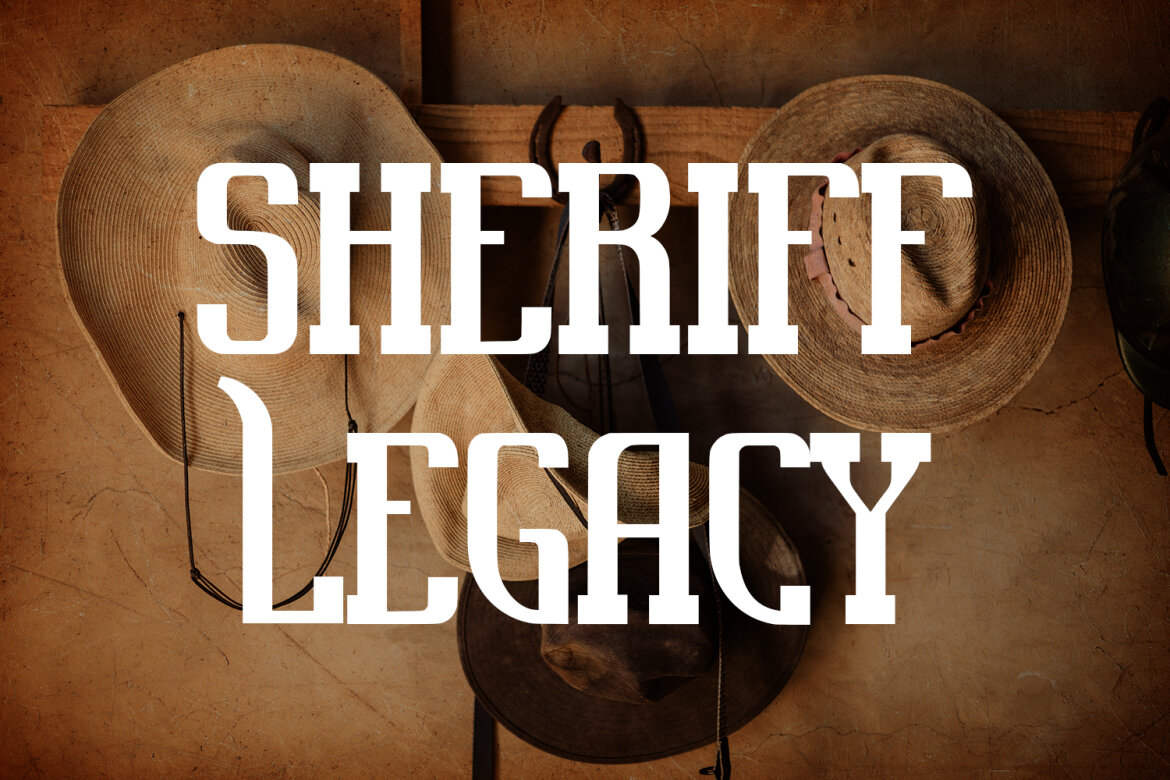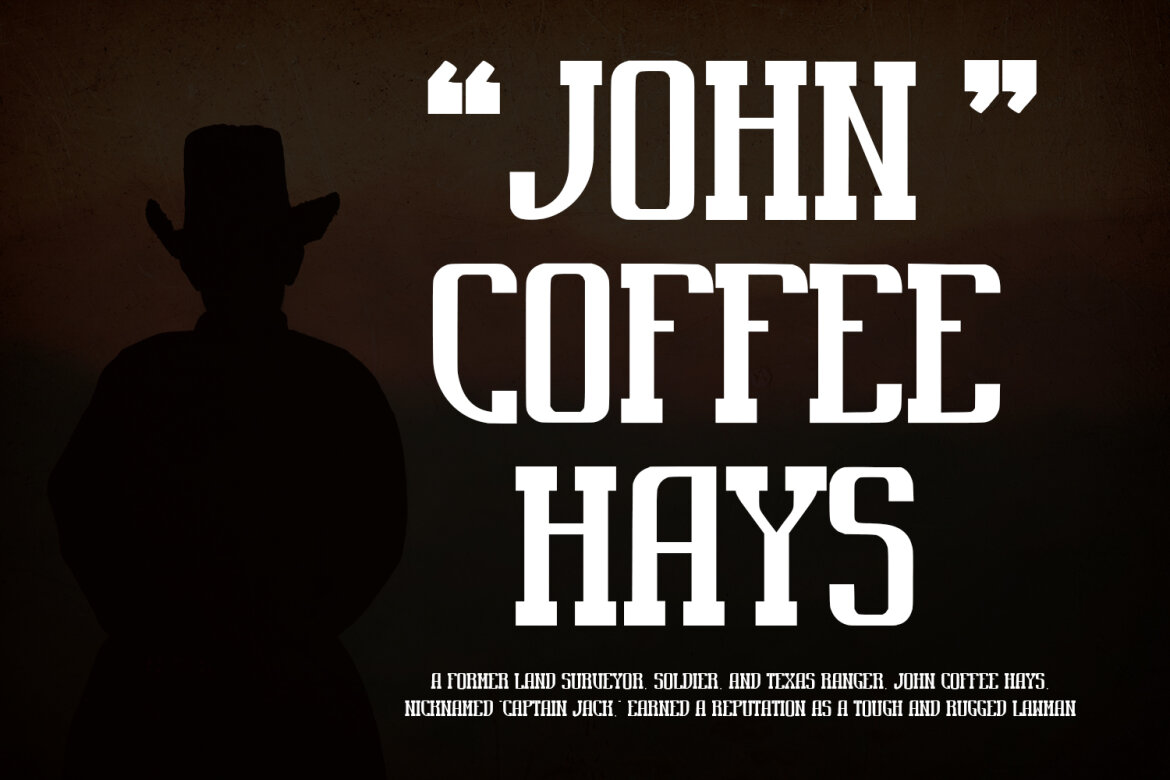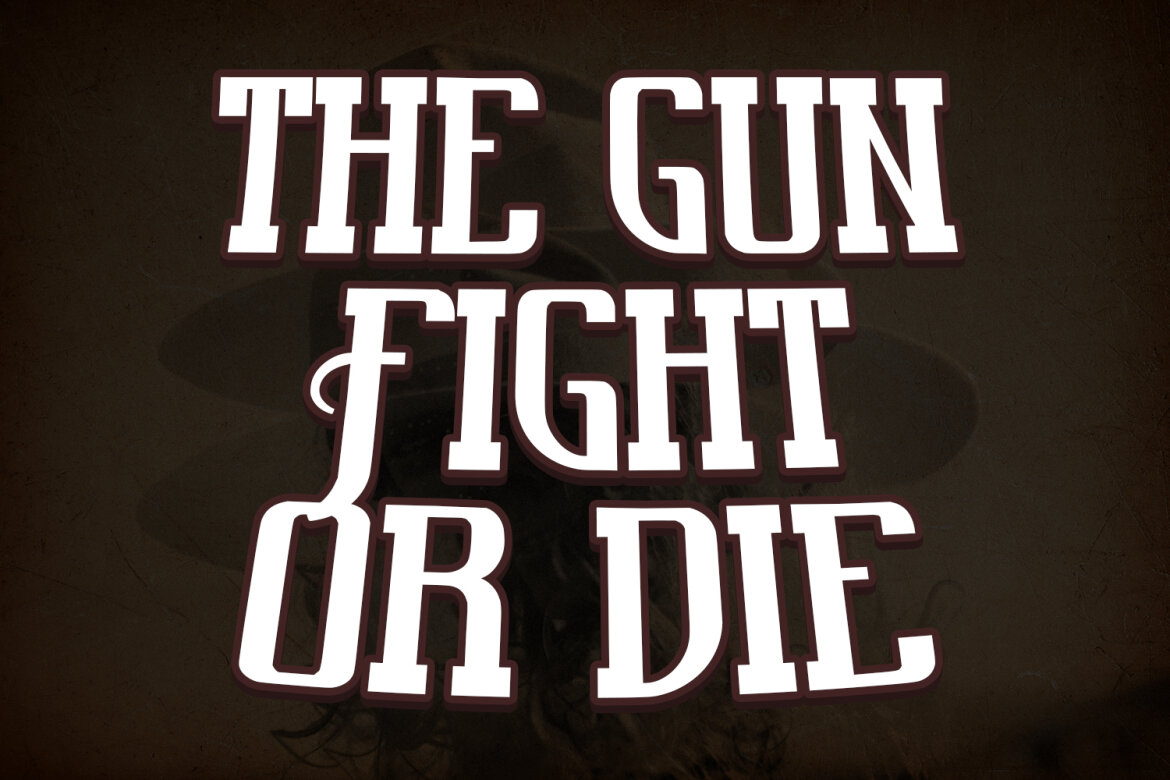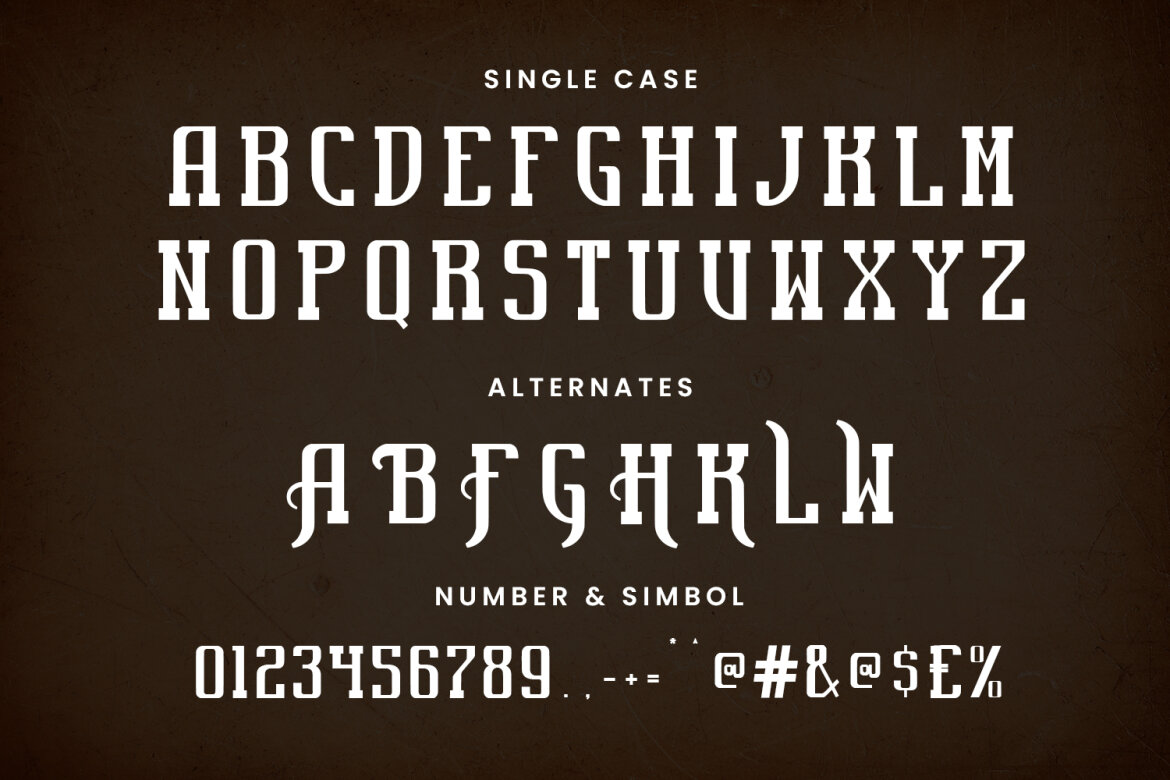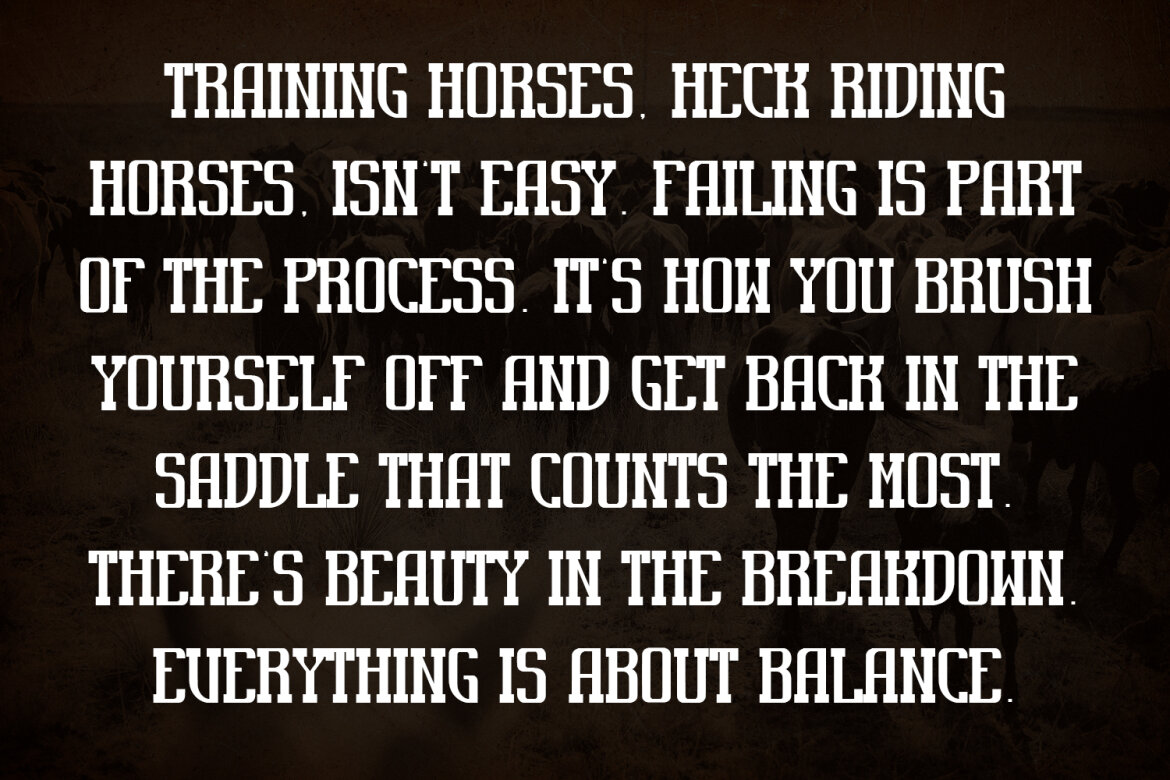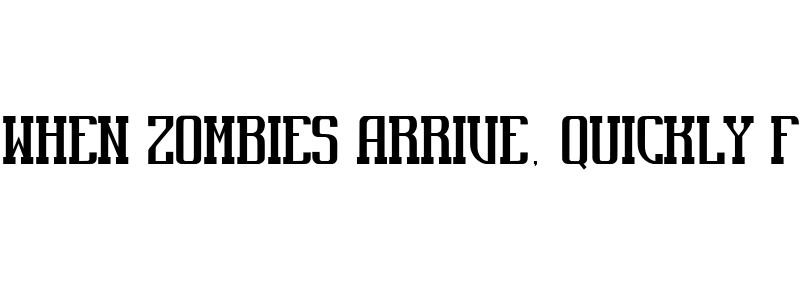
Western Sheriff Western FREE Font
Western Sheriff
Western Sheriff western display font, fun character with a bit of ligatures and alternates. To give you an extra creative work. Western Sheriff font support multilingual more than 100+ language. This font is good for logo design, Social media, Movie Titles, Books Titles, a short text even a long text letter and good for your secondary text font with script or serif. Make a stunning work with Western Sheriff font.